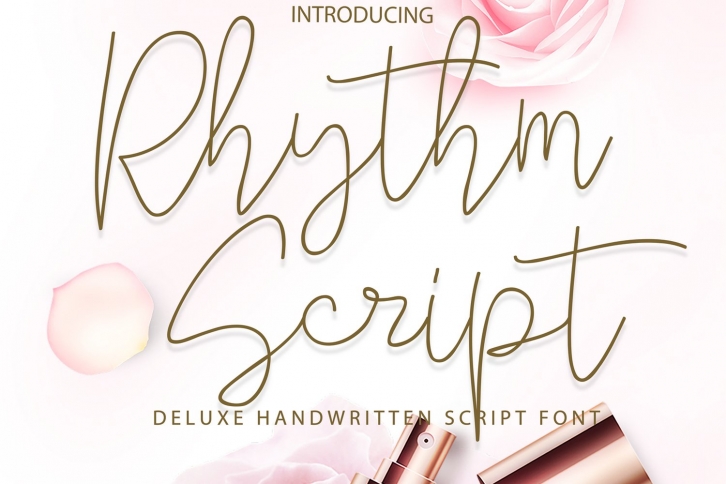
Rhythm Script is a gorgeous font that was realeased on May 26, 2020. The font can be used in many style contexts and design environments. Perfect for invitations, magazines, websites, logos, and more! It was designed by 177Studio and the file size is 3.83 MB. Thanks for checking out this font!